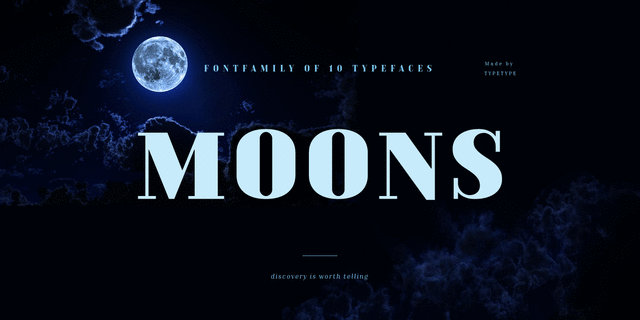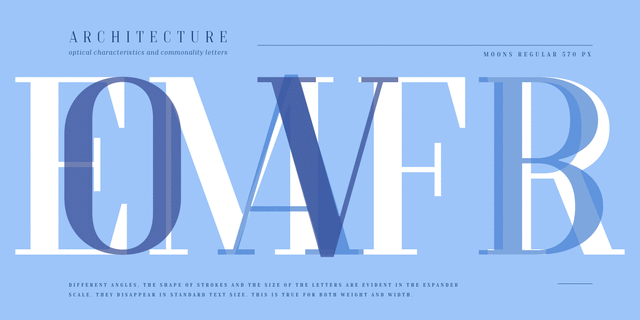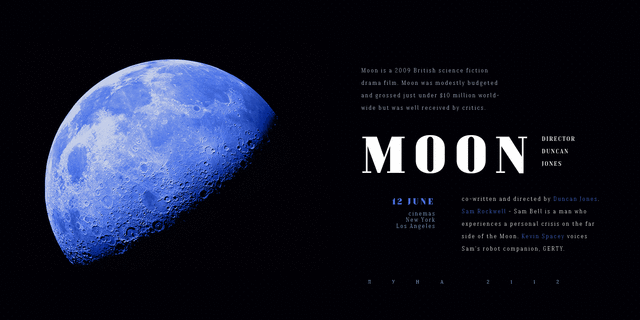
TT Moons (10 fonts)
About TT Moons is a slim and contrast serif. This fontfamily works especially smart in classic design themes. TT Moons is a typeface of the glyptal modern fontfamily. The ideal application range for this typeface is magazines, books and newspapers layout.
Thanks to its narrow proportions and 5 weights (Thin, Light, Regular, Bold, Black), TT Moons perfectly fits into any contemporary digital design, such as interactive and product design, editorial and corporate web design. This fontfamily is the real work helper and your joker when you need to combine contemporary and classic styles.
Typeface wes designed by Ivan Gladkikh in TypeType studio in 2016.
Associations for font family TT MoonsTypeface personality and character:
serious, static, stable, traditional, flat, classic, aristocratic, salon art, solemn, voiced, noble, high-quality, cultural, sharp, nostalgic, old-fashioned, rich, conservative, secular, silver, masterful, luxurious, expensive, spectacular, fragile, transparent, thin, glass, elite, fashionable, gentlemanly, pretentious, reliable, cutting, solid, select, reputable, proud, expressive, convincing, important, business, strong, dense, self-assured, severe, robust, ambitious, cinematic, extravagant, persistent, loud, close-fitting, splashy, bright, notable